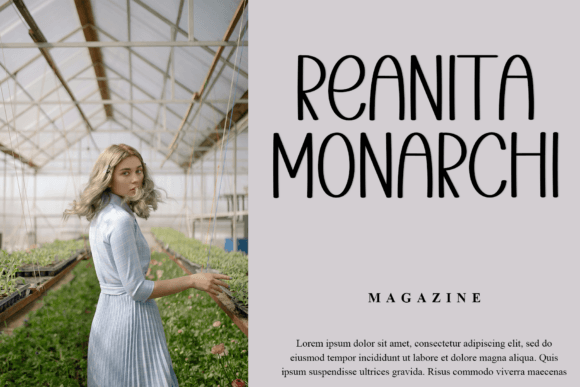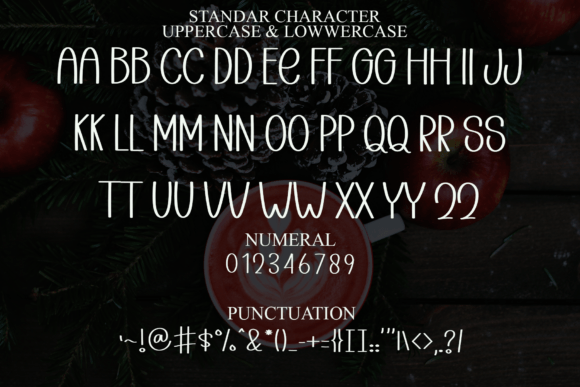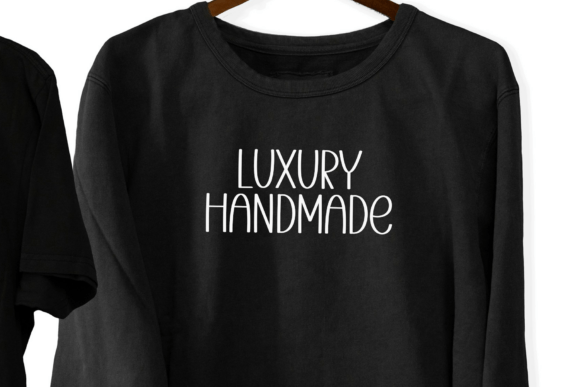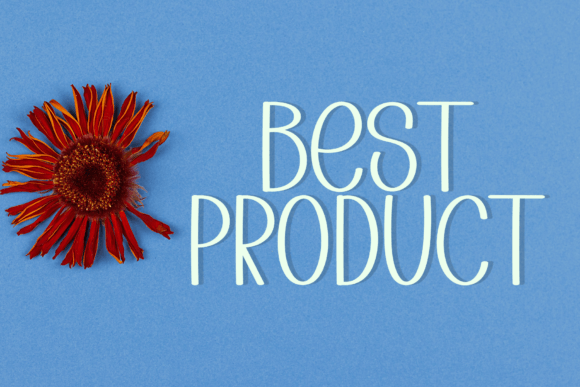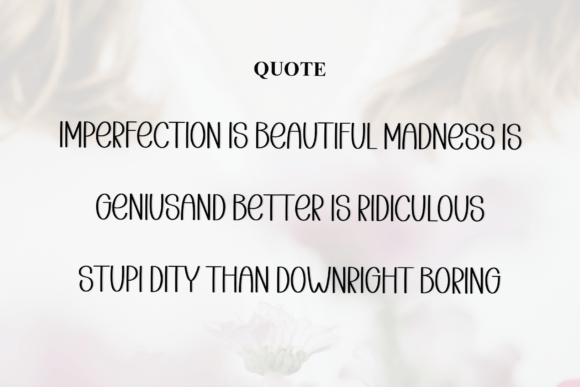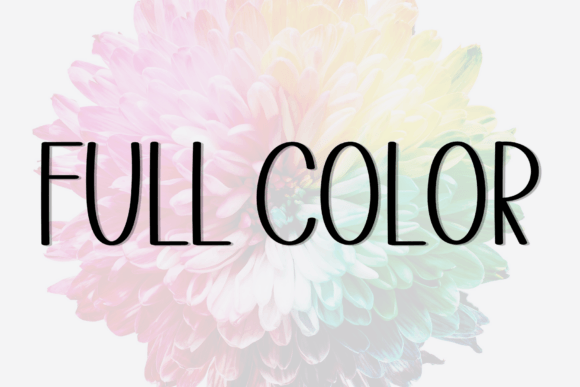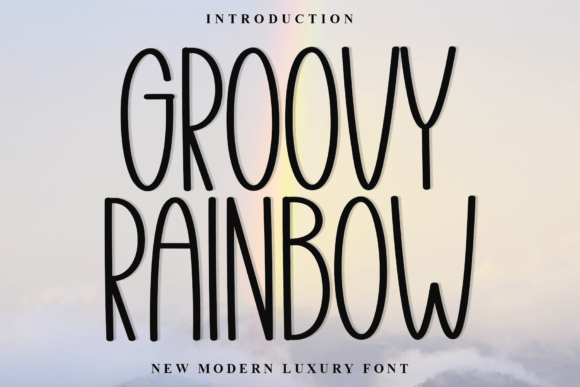
Introducing Groovy Rainbow Font: Add a Splash of Fun and Creativity to Your Designs
Are you tired of using the same old fonts in your designs? Do you want to add a touch of warmth and friendliness to your projects? Look no further than the Groovy Rainbow Font! This casual and creative font is perfect for designers, crafters, and anyone looking to add a fun and unique touch to their work.
The Characteristics of Groovy Rainbow Font
Groovy Rainbow Font is a hand-drawn font that boasts round, playful strokes that create a relaxed and approachable feel. Its charming aesthetic is perfect for personal projects, invitations, social media graphics, and any other design that requires a friendly and casual touch. The font’s unique and creative design makes it stand out from more traditional fonts, adding a splash of fun and personality to any design.
What Makes Groovy Rainbow Font So Versatile?
Groovy Rainbow Font is a dream come true for designers and crafters who want to add a personal touch to their work. Whether you’re creating invitations, social media graphics, or blog posts, this font is sure to make your designs stand out. Its playful and creative design makes it perfect for:
- Personal projects: Add a touch of warmth and friendliness to your personal projects, such as photo albums, scrapbooking, and card making.
- Invitations: Create unique and eye-catching invitations for parties, weddings, and other special events.
- Social media graphics: Add a splash of fun and personality to your social media graphics, such as Facebook posts, Instagram stories, and Twitter headers.
- Blog posts: Make your blog posts more engaging and visually appealing with Groovy Rainbow Font.
Why Choose Groovy Rainbow Font?
So why choose Groovy Rainbow Font over other fonts? Here are just a few reasons:
- Unique and creative design: Groovy Rainbow Font has a one-of-a-kind design that will make your projects stand out.
- Easy to read: Despite its playful design, Groovy Rainbow Font is easy to read, making it perfect for body text and headlines.
Tips for Using Groovy Rainbow Font
Here are a few tips for getting the most out of Groovy Rainbow Font:
- Use it sparingly: While Groovy Rainbow Font is fun and playful, it can be overwhelming if used too much. Use it sparingly to add a touch of personality to your designs.
- Pair it with other fonts: Groovy Rainbow Font pairs well with other fonts, such as sans-serif fonts and script fonts. Experiment with different pairings to find the perfect combination.
- Experiment with colors: The “rainbow” in Groovy Rainbow Font is a great starting point for experimenting with different colors. Try using different color schemes to add a unique touch to your designs.
Groovy Rainbow Font is a fun and creative font that’s perfect for designers, crafters, and anyone looking to add a touch of warmth and friendliness to their designs. Its unique and playful design makes it stand out from more traditional fonts, and its versatility makes it easy to use in a wide range of projects. So why not give Groovy Rainbow Font a try? With its PUA Encoded glyphs and compatibility with various design applications, it’s easy to get started and add a splash of fun and personality to your designs.